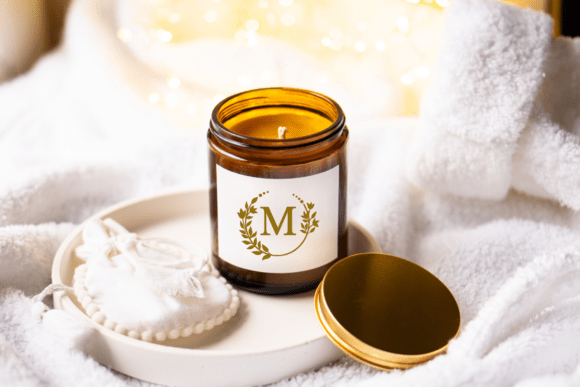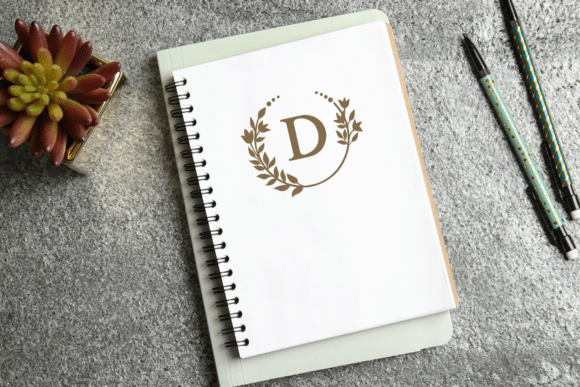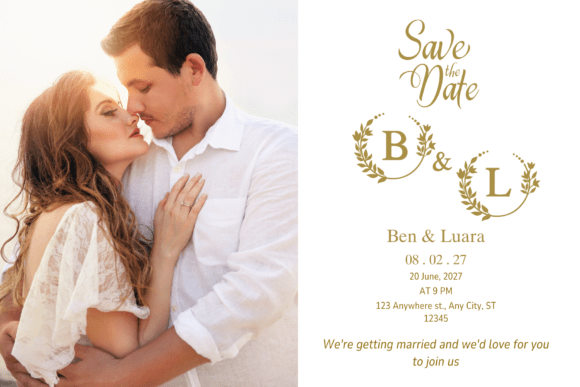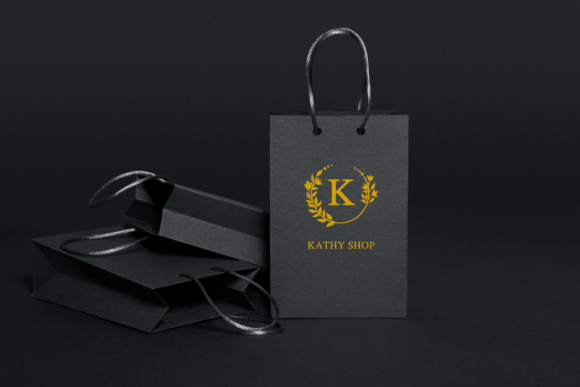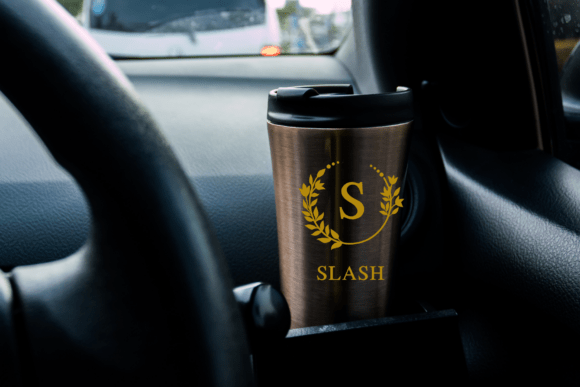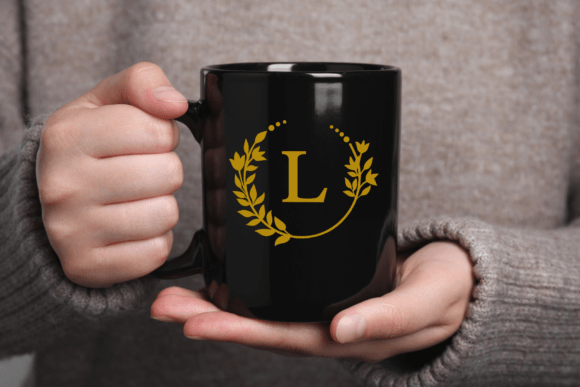
Introduction to Friday Monogram Font
As a designer, there’s nothing quite like the thrill of bringing a creative project to life. Whether it’s a wedding invitation, a baby shower card, or a special gift for a loved one, the right font can make all the difference. And for those special occasions, there’s one font that stands out from the rest: the Friday Monogram Font.
This elegant font is a design resource like no other, featuring decorative letters nestled inside a beautiful flower frame. With its high-quality design and transparent background, it’s the perfect addition to any celebration. And the best part? It’s available for free download, making it a valuable resource for designers looking to add a touch of sophistication to their work.
Whether you’re a seasoned designer or just starting out, the Friday Monogram Font is a must-have in your design arsenal. Its versatility and charm make it perfect for a wide range of creative projects, from invitations and greeting cards to gifts and more.
Key Features of Friday Monogram Font
- Features a high-resolution design, suitable for use in print and digital media.
- Unique monogram design with a modern twist, perfect for adding a personal touch to invitations, branding, and other creative projects.
Honest Review: Friday Monogram Font
I recently stumbled upon the Friday Monogram Font and I’m excited to share my thoughts on this design resource. As a designer, I’m always on the lookout for high-quality fonts that can elevate my creative projects. The Friday Monogram Font definitely delivers.
- ✨ Unique and modern design aesthetic that’s perfect for branding and packaging
- ⚠️ Limited font styles and variations, which might not be suitable for more complex projects
- ⚠️ Not suitable for use in small font sizes, as the design might get lost
Overall, I’m impressed with the Friday Monogram Font. It’s a great addition to any designer’s toolkit, especially for creative projects that require a touch of elegance and sophistication. With its high-quality design and transparent background option, it’s definitely a design resource worth checking out. Plus, it’s free to download, making it an excellent value for designers on a budget.
The Friday Monogram Font is commonly used in social media graphics, presentations, and other creative projects. It’s also a great design resource for anyone looking to add a touch of elegance to their work.